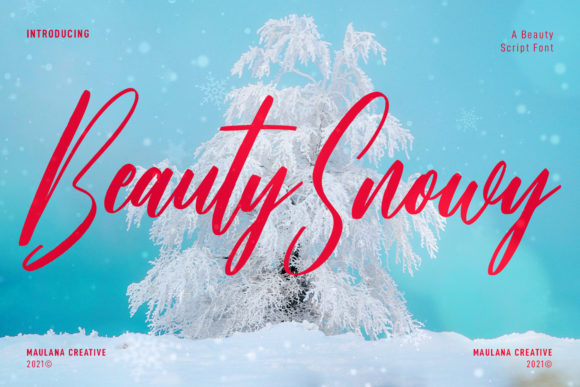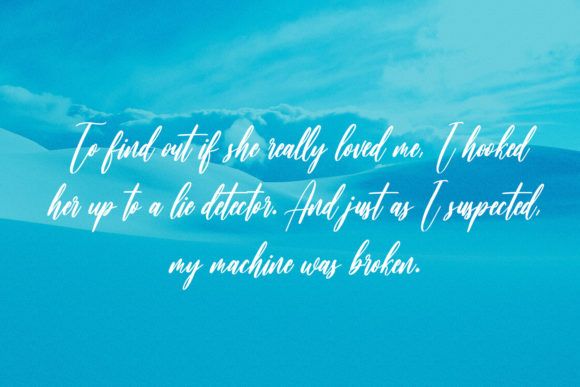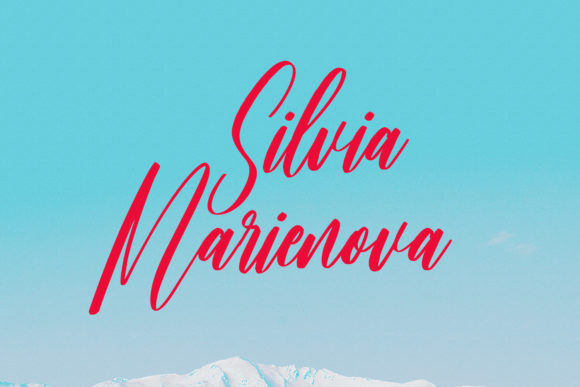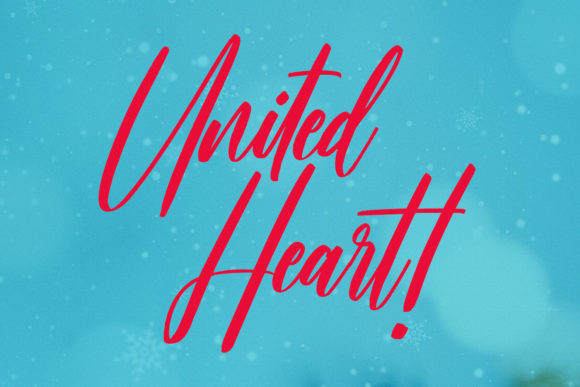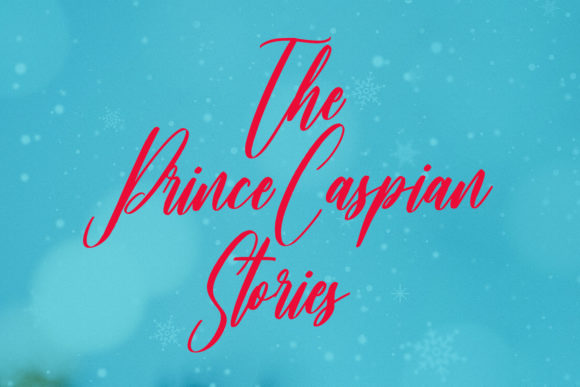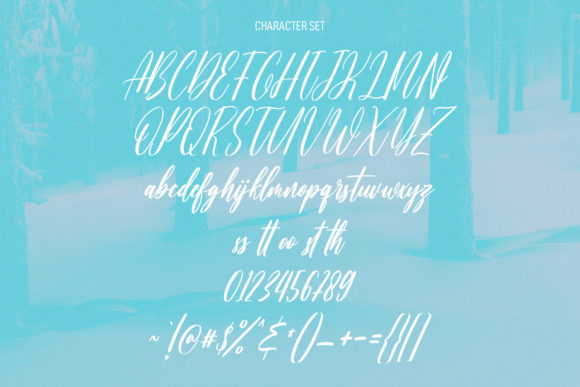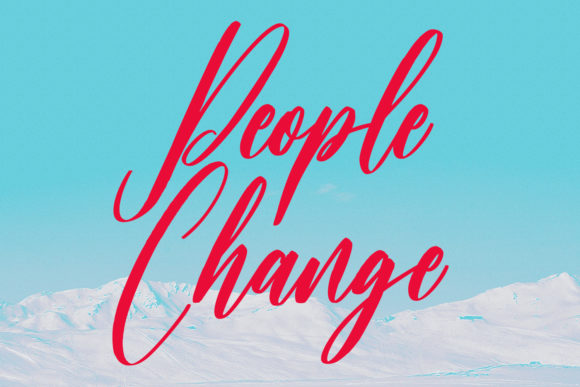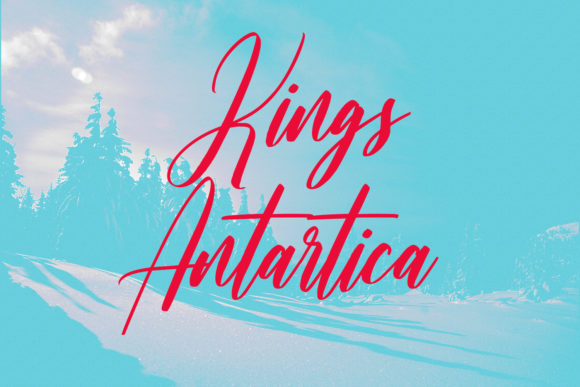
Beauty Snowy Script Font
About Beauty Snowy Script Font
Beauty Snowy is an expressive super slanted signature script font. With high contrast stroke, condensed and fun character with a ligature. This font is suitable for logo design, social media, movie titles, books titles, short text even a long text letter.